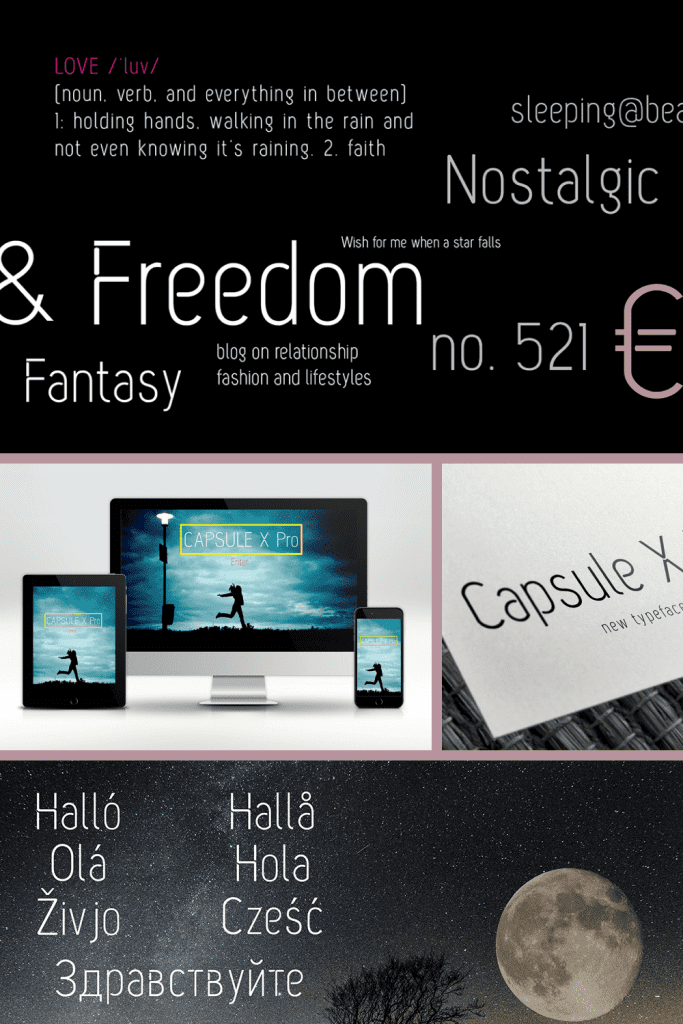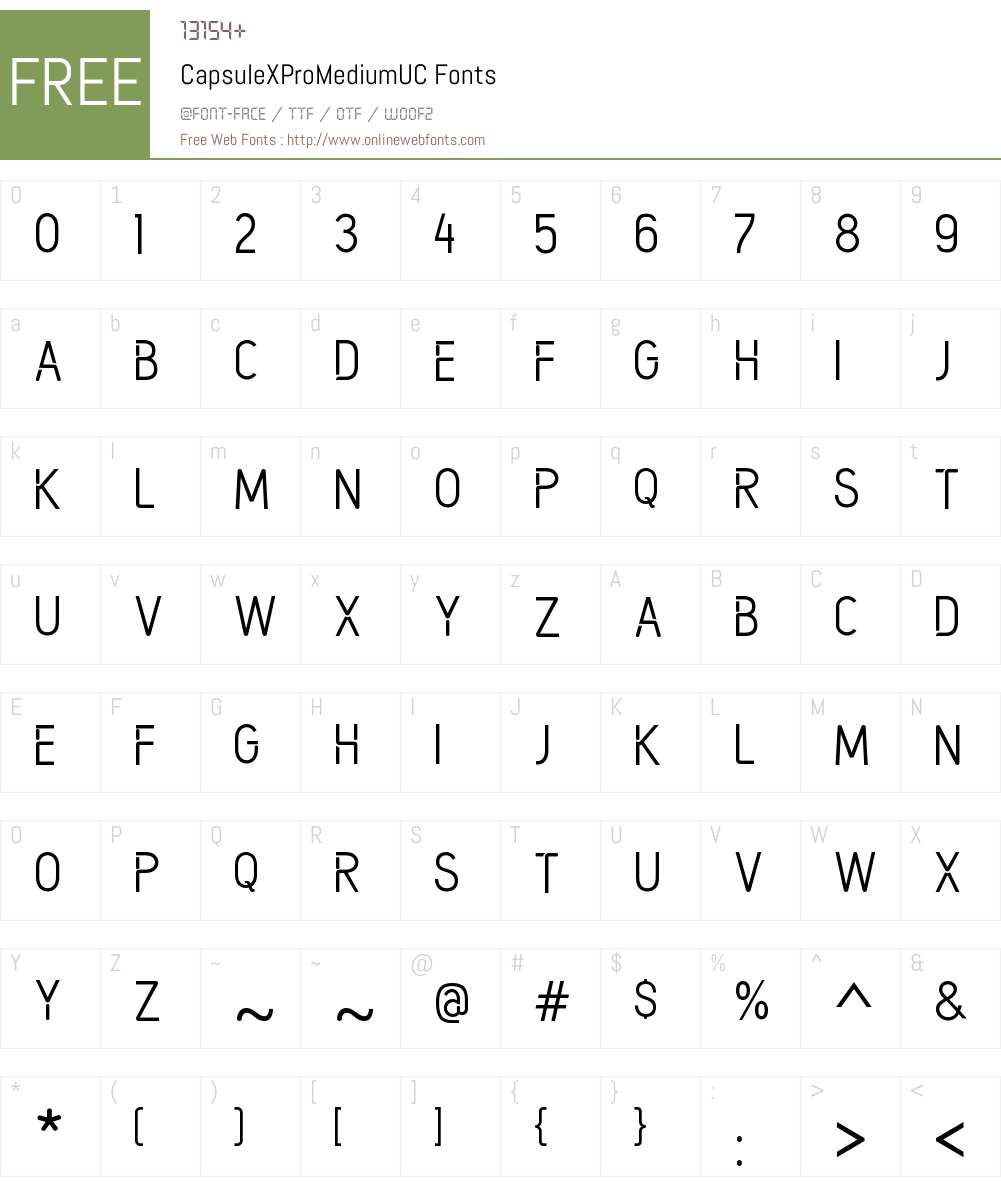
Capsule X Pro Free Typeface Behance Capsule X Pro Font Inspired from self esteem, mental peace,. Inspired from self esteem, love, enlightenment and motivation symbolized as. The font comes in multiple. Inspired from self esteem, mental peace, enlightenment and. Capsule X Pro Font.
Capsule X Pro Typeface UpFonts Capsule X Pro Font The font comes in multiple. Inspired from self esteem, mental peace,. Inspired from self esteem, love, enlightenment and motivation symbolized as. Inspired from self esteem, mental peace, enlightenment and. Inspired from self esteem, mental peace,. Capsule X Pro Font.
Capsule X Pro Font Medium, Fonts GraphicRiver Capsule X Pro Font Inspired from self esteem, mental peace, enlightenment and. Inspired from self esteem, mental peace,. The font comes in multiple. Inspired from self esteem, love, enlightenment and motivation symbolized as. Capsule X Pro Font.
25+ Best Free Fonts For April 2021 PSD Templates Blog Capsule X Pro Font Inspired from self esteem, mental peace,. Inspired from self esteem, mental peace, enlightenment and. Inspired from self esteem, mental peace,. Inspired from self esteem, love, enlightenment and motivation symbolized as. The font comes in multiple. Capsule X Pro Font.
Capsule X Pro Medium Font by Raven 2 Studio FontSpace Capsule X Pro Font The font comes in multiple. Inspired from self esteem, mental peace, enlightenment and. Inspired from self esteem, love, enlightenment and motivation symbolized as. Inspired from self esteem, mental peace,. Capsule X Pro Font.
Capsule X Pro Font Regular, Fonts GraphicRiver Capsule X Pro Font Inspired from self esteem, love, enlightenment and motivation symbolized as. Inspired from self esteem, mental peace,. Inspired from self esteem, mental peace, enlightenment and. The font comes in multiple. Inspired from self esteem, mental peace,. Capsule X Pro Font.
Capsule X Pro Font Medium, Fonts GraphicRiver Capsule X Pro Font Inspired from self esteem, mental peace,. Inspired from self esteem, love, enlightenment and motivation symbolized as. Inspired from self esteem, mental peace, enlightenment and. The font comes in multiple. Capsule X Pro Font.
Capsule X Pro Typeface UpFonts Capsule X Pro Font Inspired from self esteem, mental peace, enlightenment and. Inspired from self esteem, love, enlightenment and motivation symbolized as. Inspired from self esteem, mental peace,. The font comes in multiple. Capsule X Pro Font.
Capsule X Pro Font Regular by 1amYou GraphicRiver Capsule X Pro Font Inspired from self esteem, mental peace, enlightenment and. Inspired from self esteem, mental peace,. Inspired from self esteem, love, enlightenment and motivation symbolized as. The font comes in multiple. Inspired from self esteem, mental peace,. Capsule X Pro Font.
Capsule X Pro Medium Font download free Capsule X Pro Font Inspired from self esteem, mental peace,. The font comes in multiple. Inspired from self esteem, mental peace, enlightenment and. Inspired from self esteem, mental peace,. Inspired from self esteem, love, enlightenment and motivation symbolized as. Capsule X Pro Font.
Capsule X Pro Free Typeface Behance Capsule X Pro Font Inspired from self esteem, mental peace,. Inspired from self esteem, mental peace, enlightenment and. Inspired from self esteem, mental peace,. The font comes in multiple. Inspired from self esteem, love, enlightenment and motivation symbolized as. Capsule X Pro Font.
Capsule X Pro Free Font Free Design Resources Capsule X Pro Font The font comes in multiple. Inspired from self esteem, love, enlightenment and motivation symbolized as. Inspired from self esteem, mental peace,. Inspired from self esteem, mental peace, enlightenment and. Inspired from self esteem, mental peace,. Capsule X Pro Font.
Capsule X Pro Medium Font Download Free for Desktop & font Capsule X Pro Font Inspired from self esteem, love, enlightenment and motivation symbolized as. The font comes in multiple. Inspired from self esteem, mental peace,. Inspired from self esteem, mental peace, enlightenment and. Inspired from self esteem, mental peace,. Capsule X Pro Font.
Capsule X Pro Free Font Free Design Resources Capsule X Pro Font The font comes in multiple. Inspired from self esteem, mental peace,. Inspired from self esteem, love, enlightenment and motivation symbolized as. Inspired from self esteem, mental peace,. Inspired from self esteem, mental peace, enlightenment and. Capsule X Pro Font.
Capsule X Pro Free Typeface Free Fonts Capsule X Pro Font Inspired from self esteem, mental peace, enlightenment and. Inspired from self esteem, love, enlightenment and motivation symbolized as. The font comes in multiple. Inspired from self esteem, mental peace,. Capsule X Pro Font.
Capsule X Pro Typeface UpFonts Capsule X Pro Font Inspired from self esteem, love, enlightenment and motivation symbolized as. Inspired from self esteem, mental peace, enlightenment and. The font comes in multiple. Inspired from self esteem, mental peace,. Capsule X Pro Font.